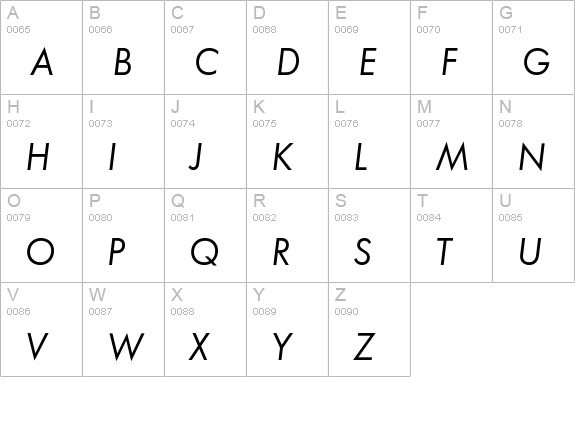
FuturaEF-BookObl Font Details
FuturaEF-BookObl is a modern and sleek font that exudes elegance and sophistication. With its clean lines and geometric shapes, this typeface is perfect for adding a touch of class to any design project. The oblique style of the font adds a dynamic and contemporary feel, making it suitable for a wide range of applications. What sets FuturaEF-BookObl apart is that it is available for free download at FontsMarket.com. This means that you can easily access this high-quality font without any cost, making it a valuable resource for designers, creatives, and anyone looking to elevate their projects with a touch of style and professionalism. Whether you're designing a logo, creating a website, or working on a branding project, FuturaEF-BookObl is a versatile font that will help you achieve a polished and sophisticated look. Download it for free today and elevate your designs with this timeless and stylish typeface.